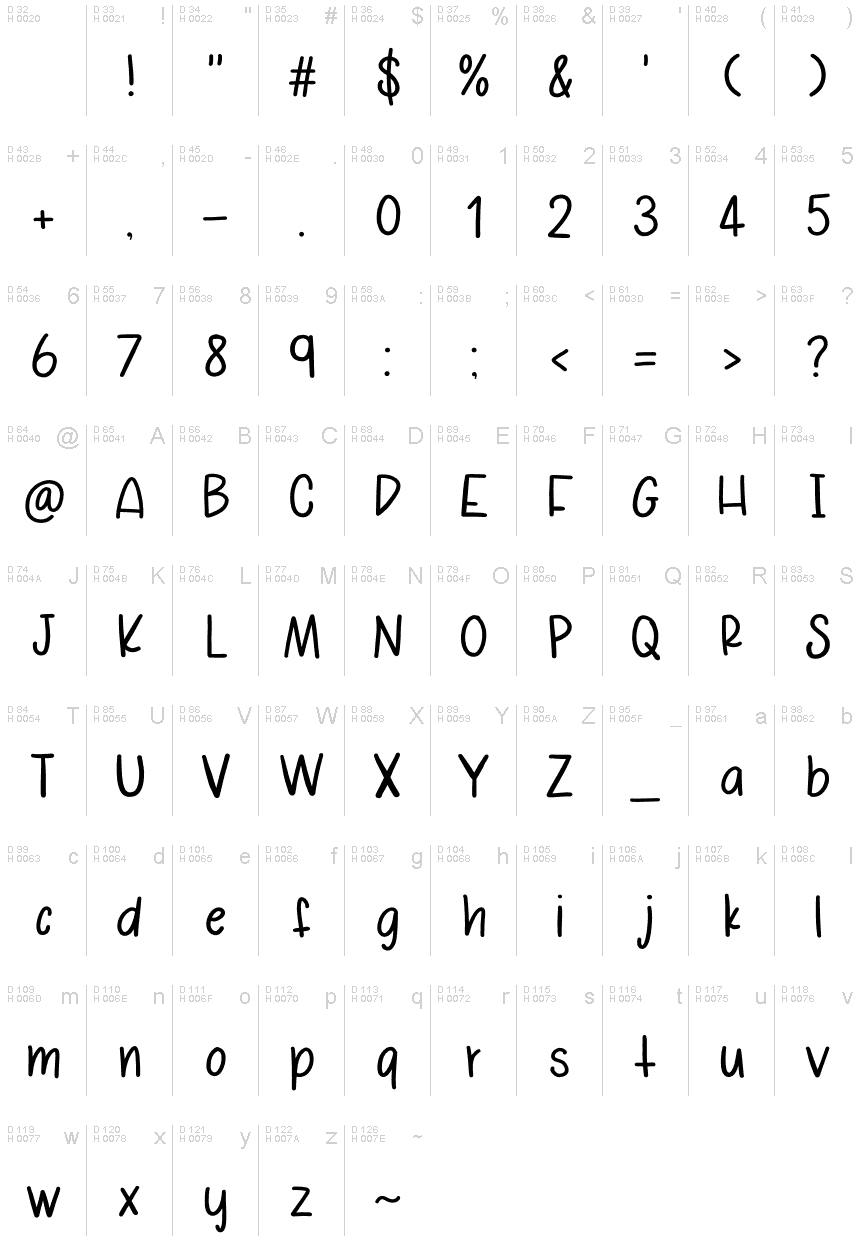
StraightForward Regular
Straight Forward, designed by Marina Sanders, is a semi-light handwritten font that exudes a natural and unpretentious charm. With its clean lines and fluid curves, this font captures the spontaneity of hand-drawn letters while maintaining an easy-to-read form that's both friendly and approachable.
The subtle variation in stroke thickness imparts a personalized touch to the Straight Forward font, making it ideal for projects that require a bespoke or artisanal feel. Whether it's for branding, invitations, or editorial design, this font offers an aesthetic versatility that can adapt to both casual and sophisticated contexts.
Visually appealing with its semi-light weight, Straight Forward strikes the perfect balance between delicacy and legibility. Its handwritten style adds warmth and character to any creative endeavor. Embrace the simplicity and elegance of Straight Forward for your next project where personality and clarity are paramount.